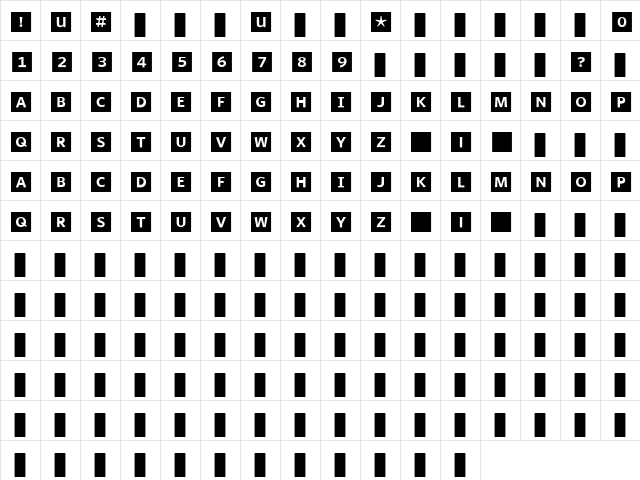
WhitneyIndexBlack Medium Font Preview
WhitneyIndexBlack Medium
Design Context for WhitneyIndexBlack Typeface
WhitneyIndexBlack is a composed and adaptable typeface that performs quietly and consistently across a wide range of design contexts.